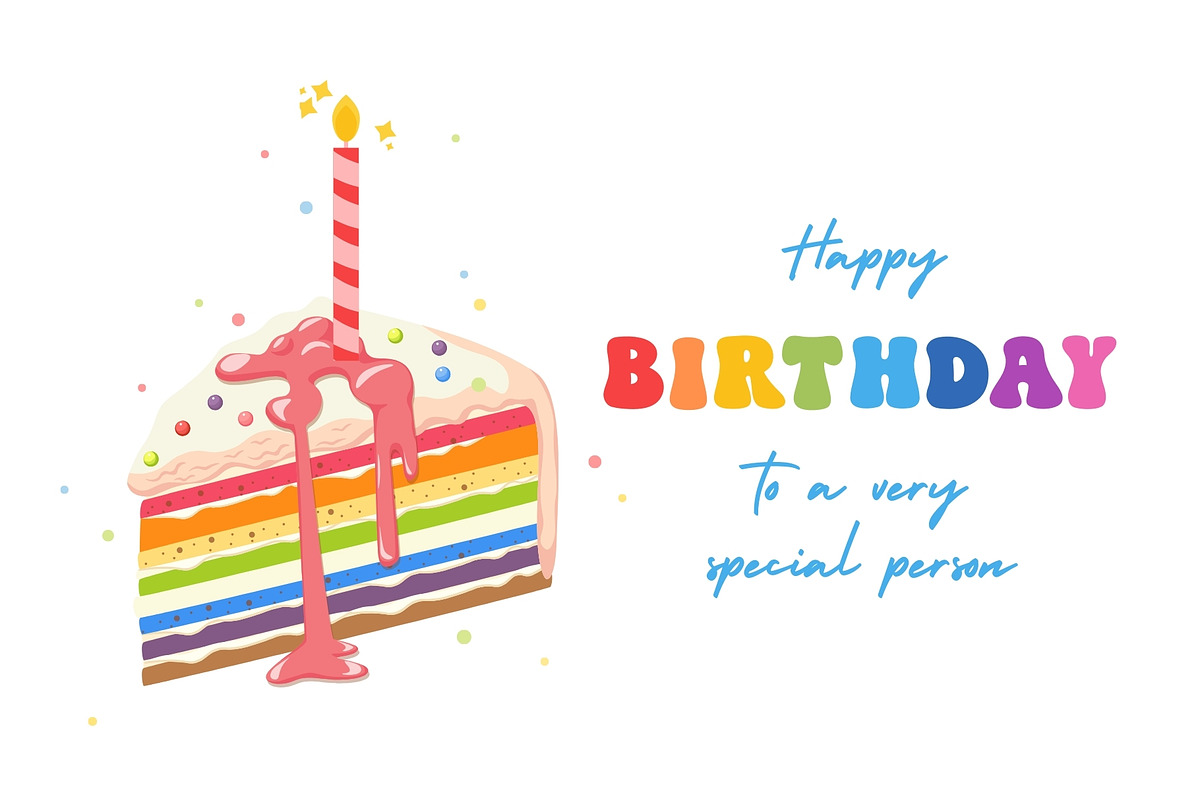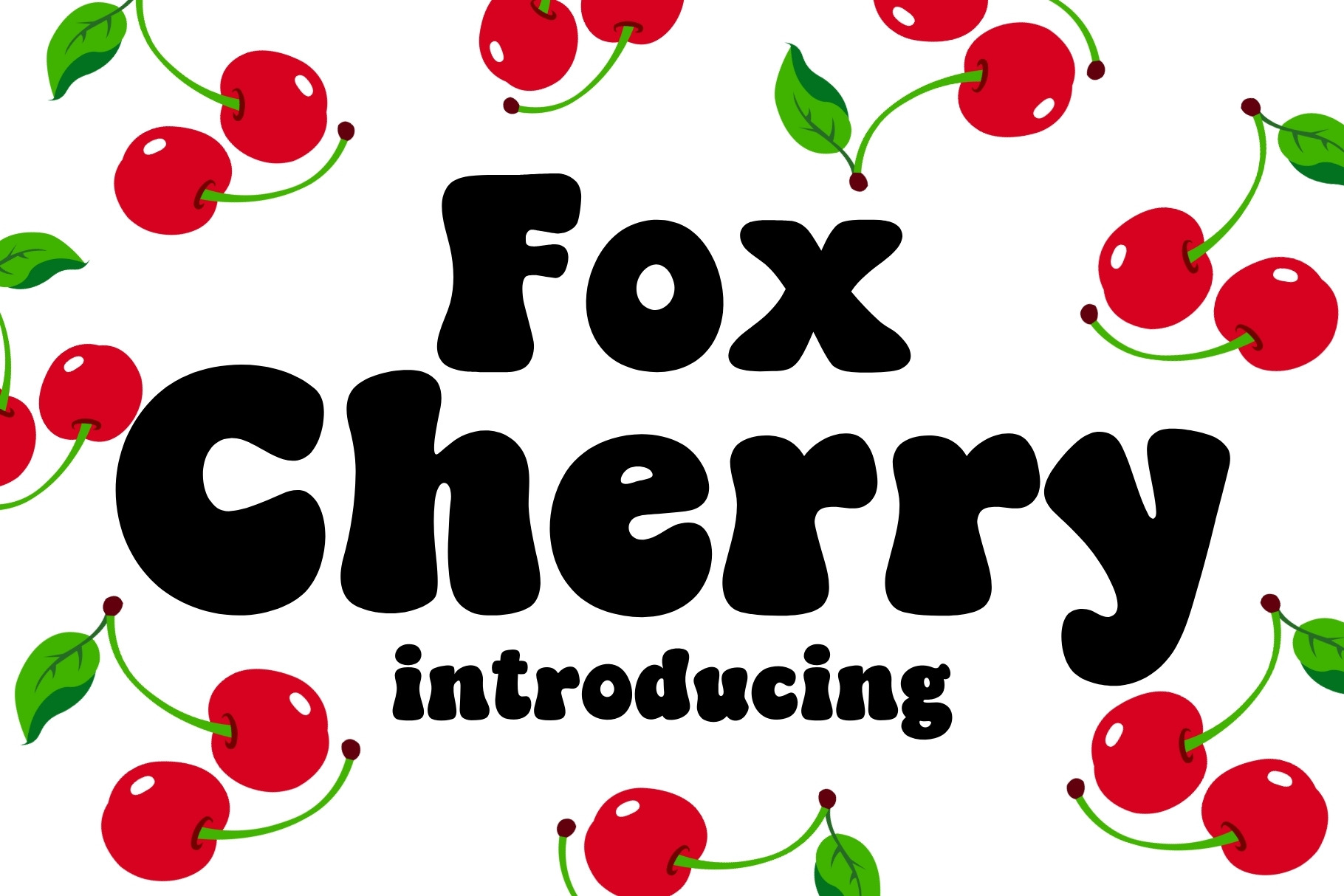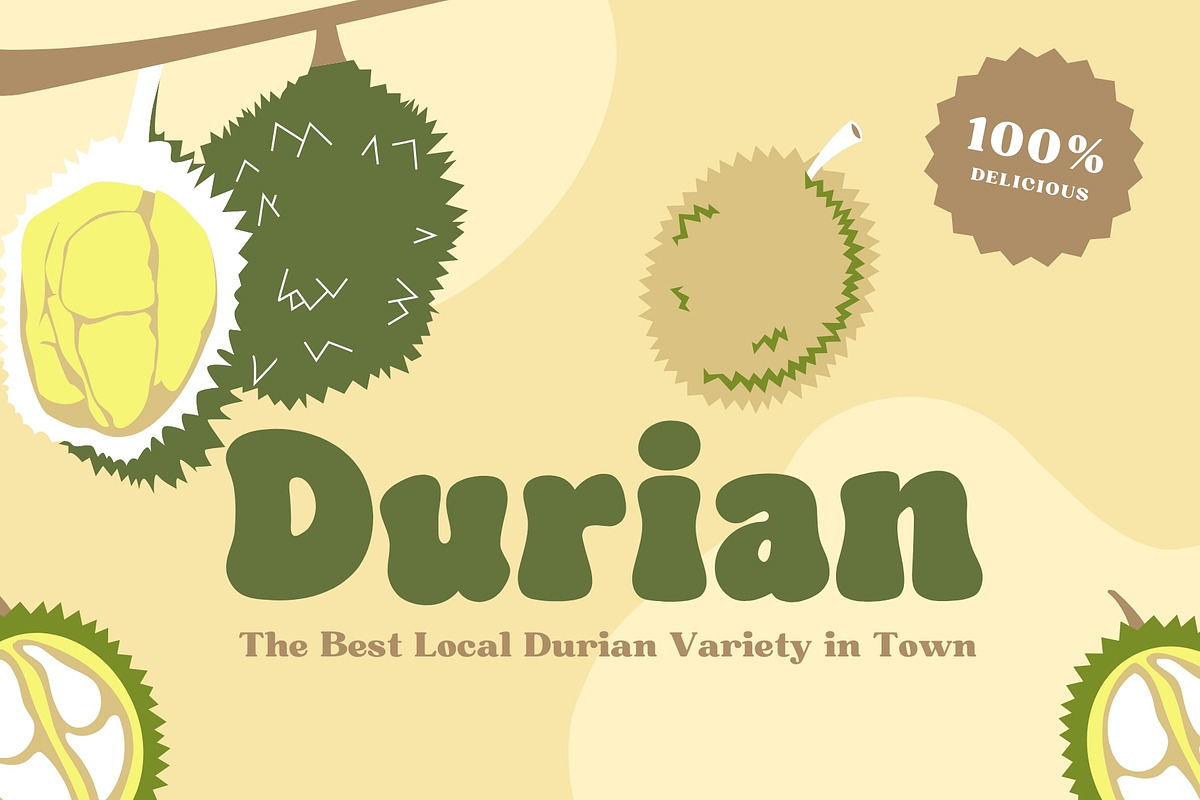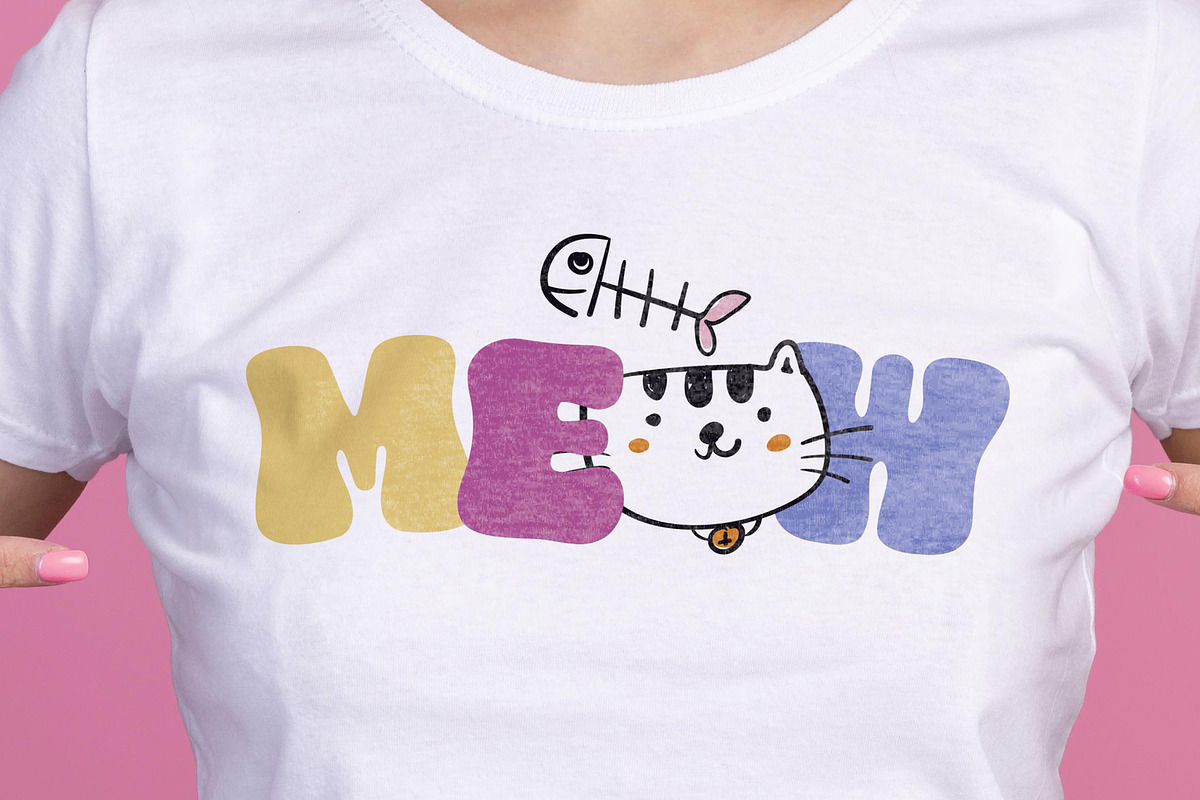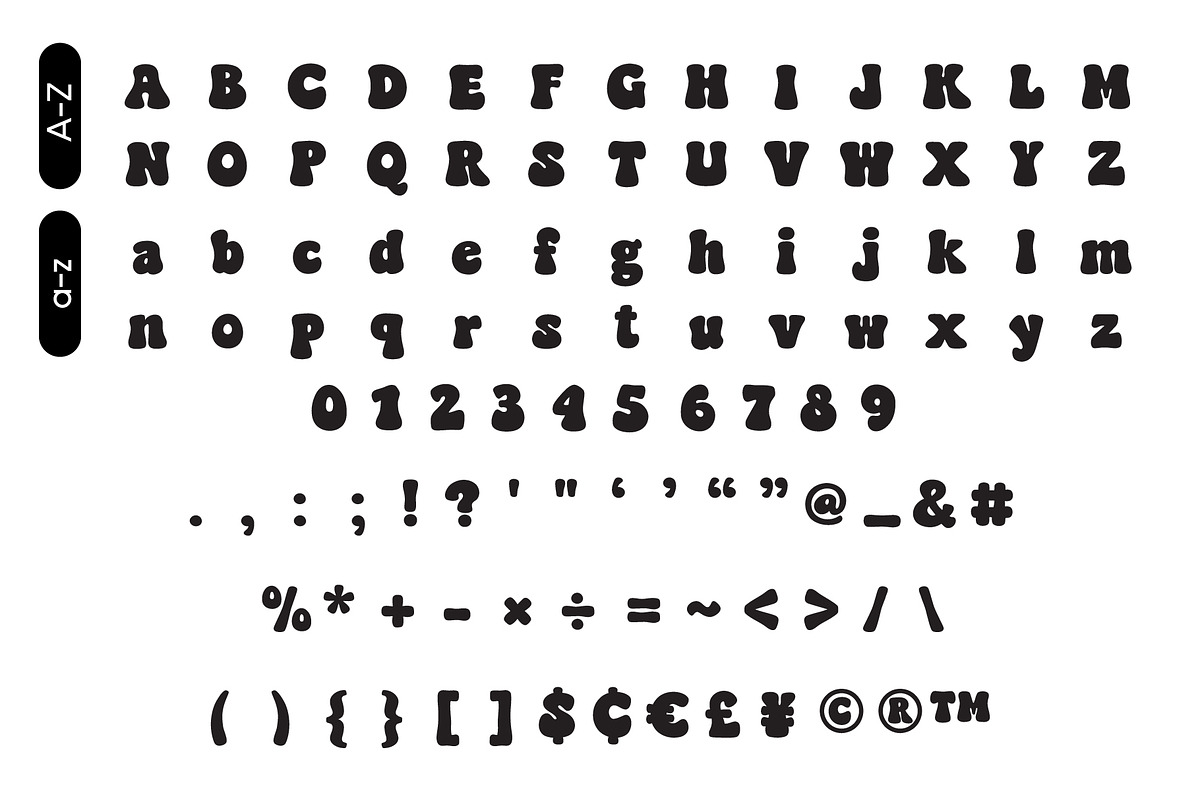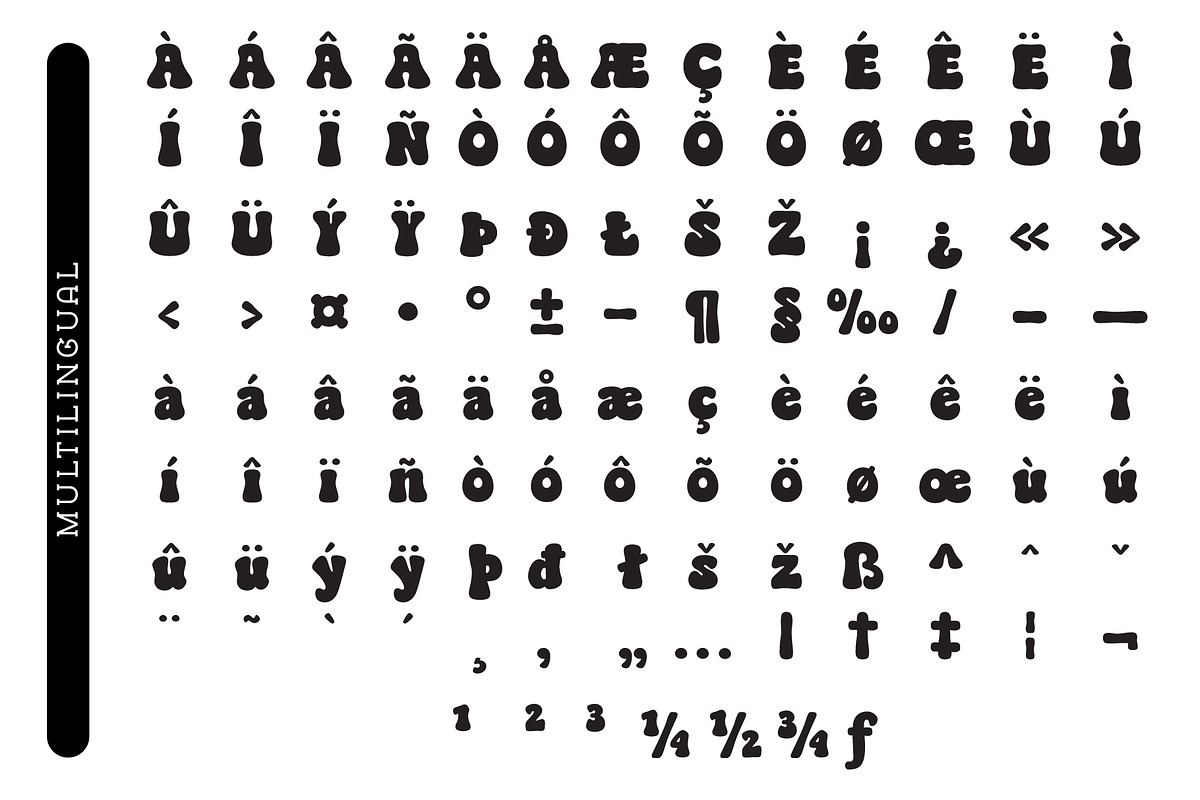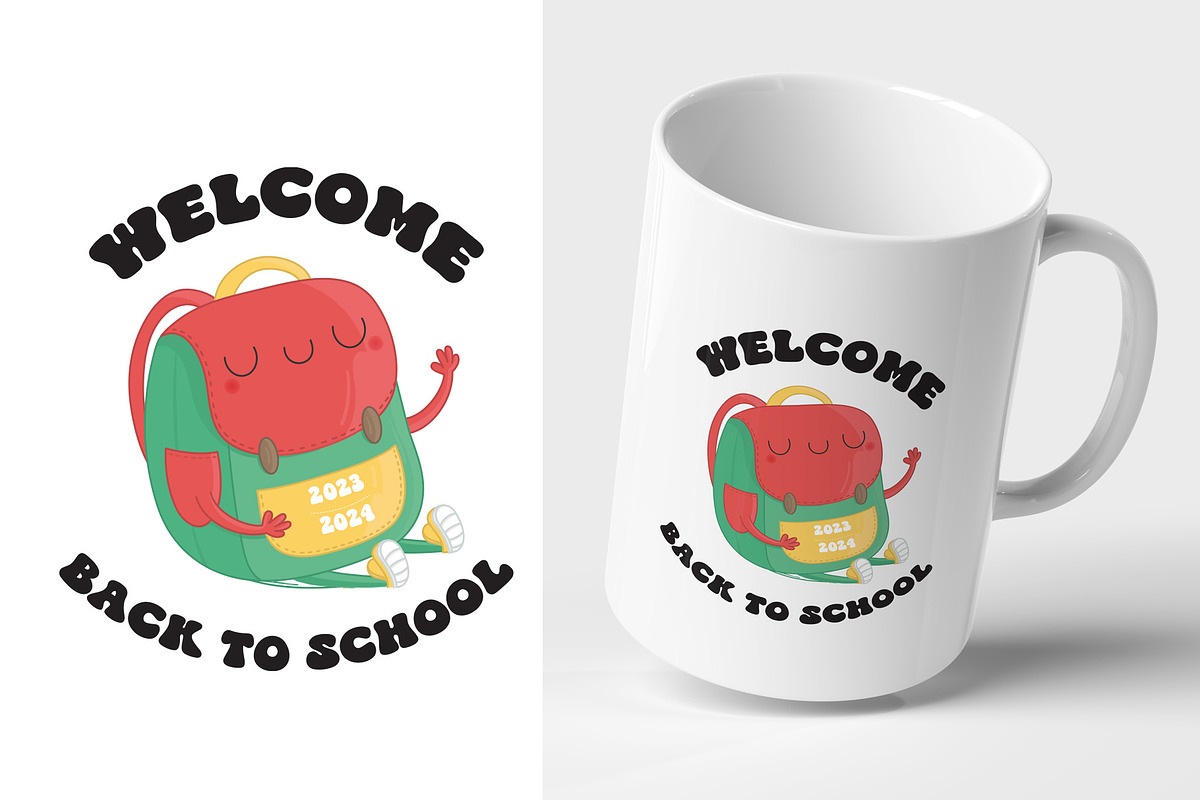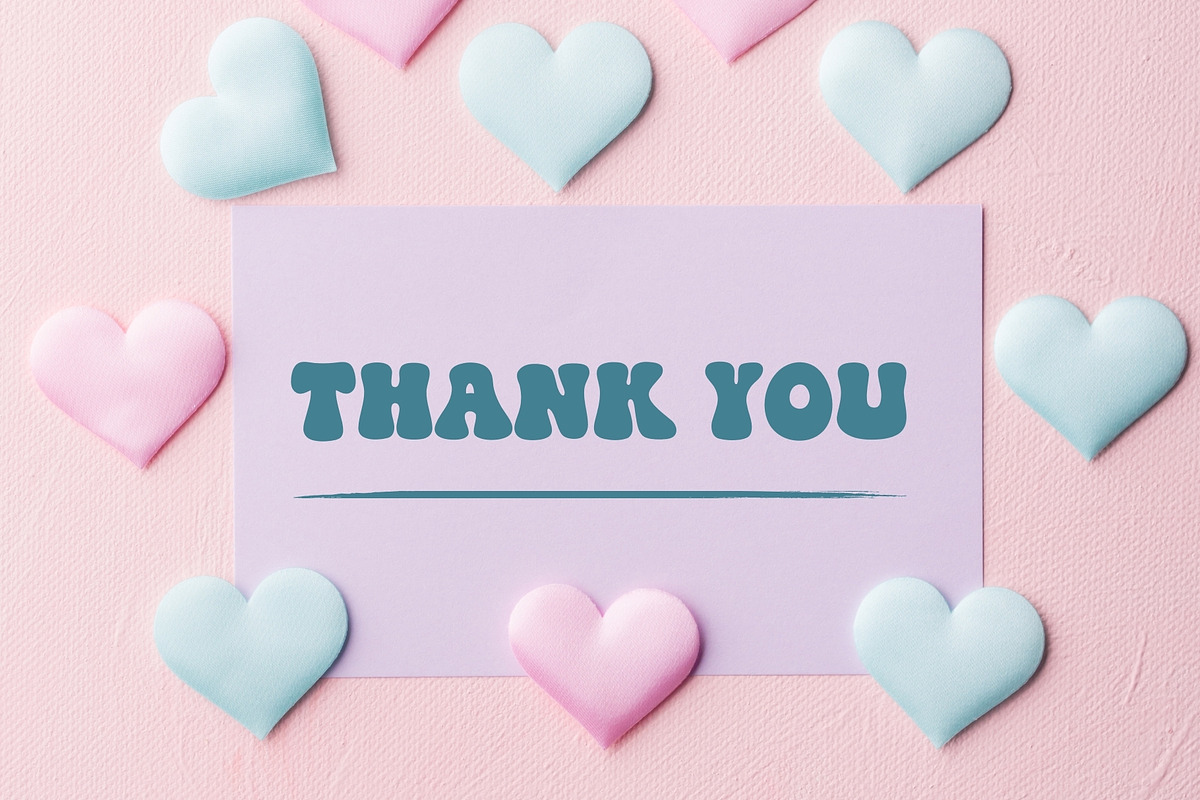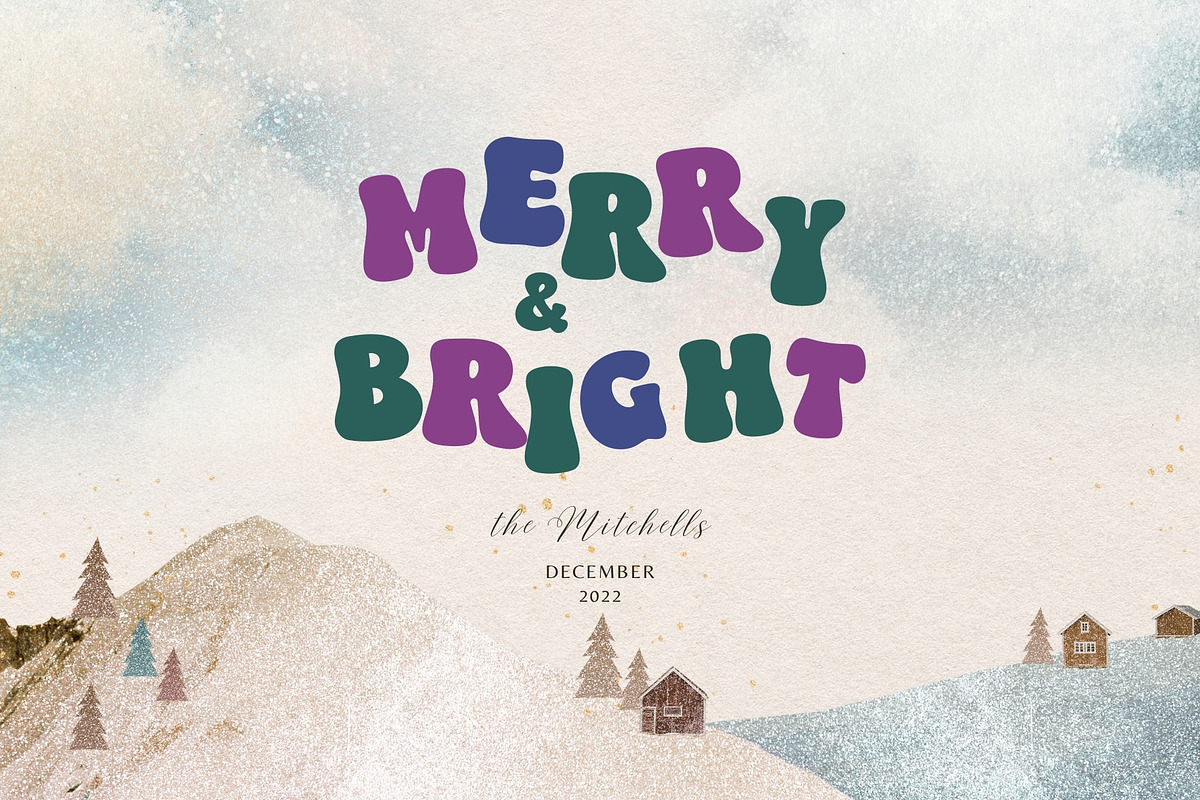
Fox Cherry Font
Fox Cherry is a groovy and playful display font that captures the cool, and retro style. Fun and funky, this font is perfect for adding a touch of personality to any design project. Whether you’re creating T-shirts, stickers, children’s book covers, social media posts, or anything in between, Fox Cherry is the perfect choice for making your designs stand out.